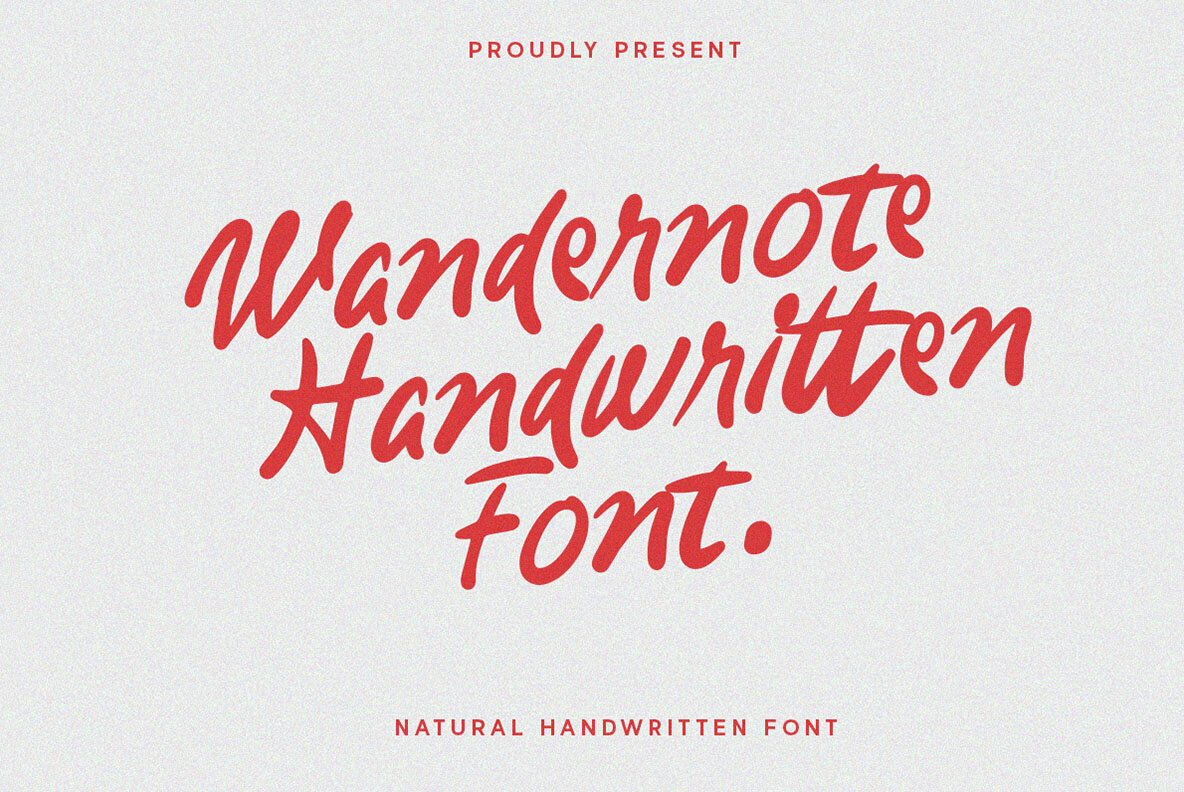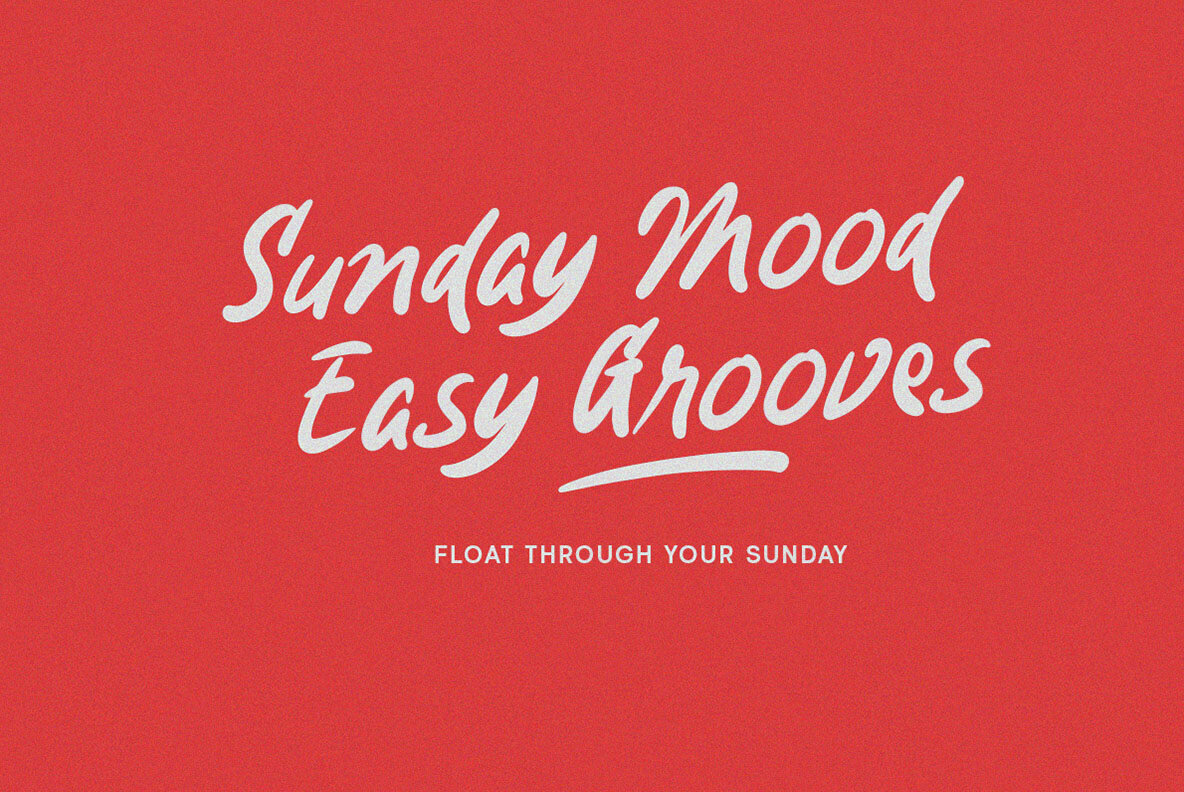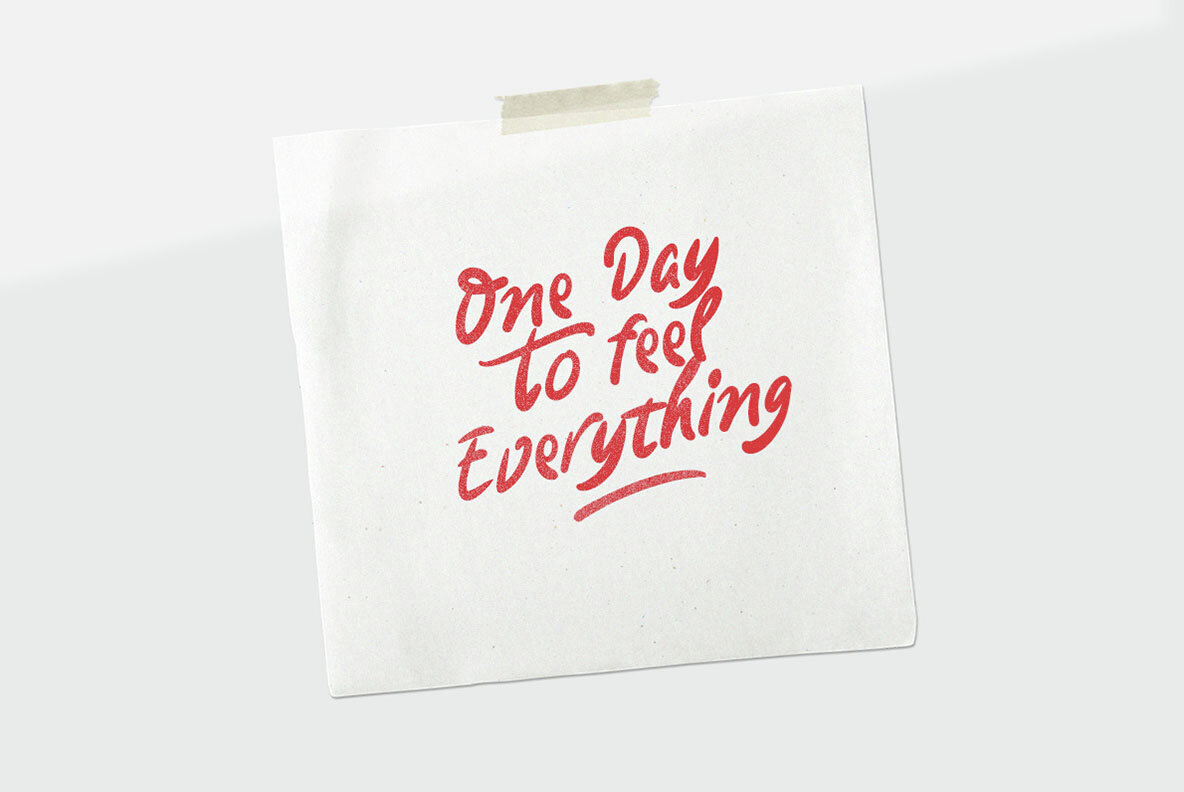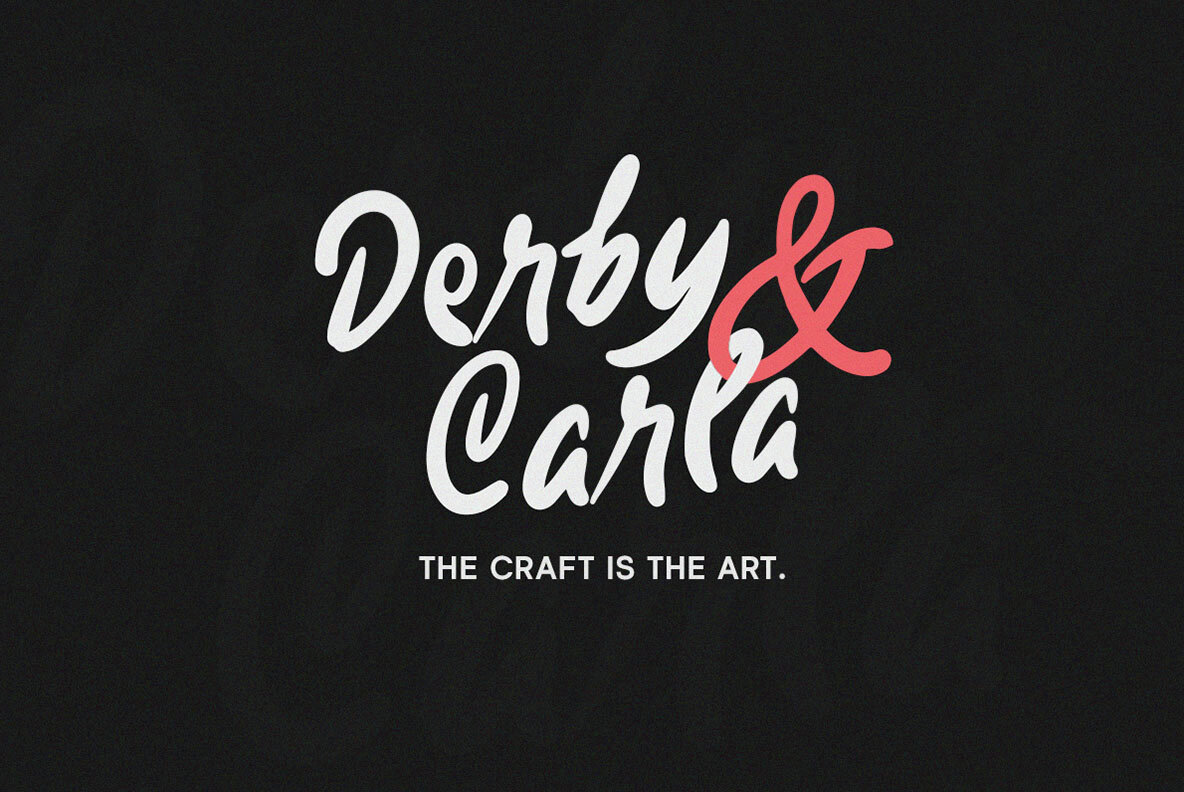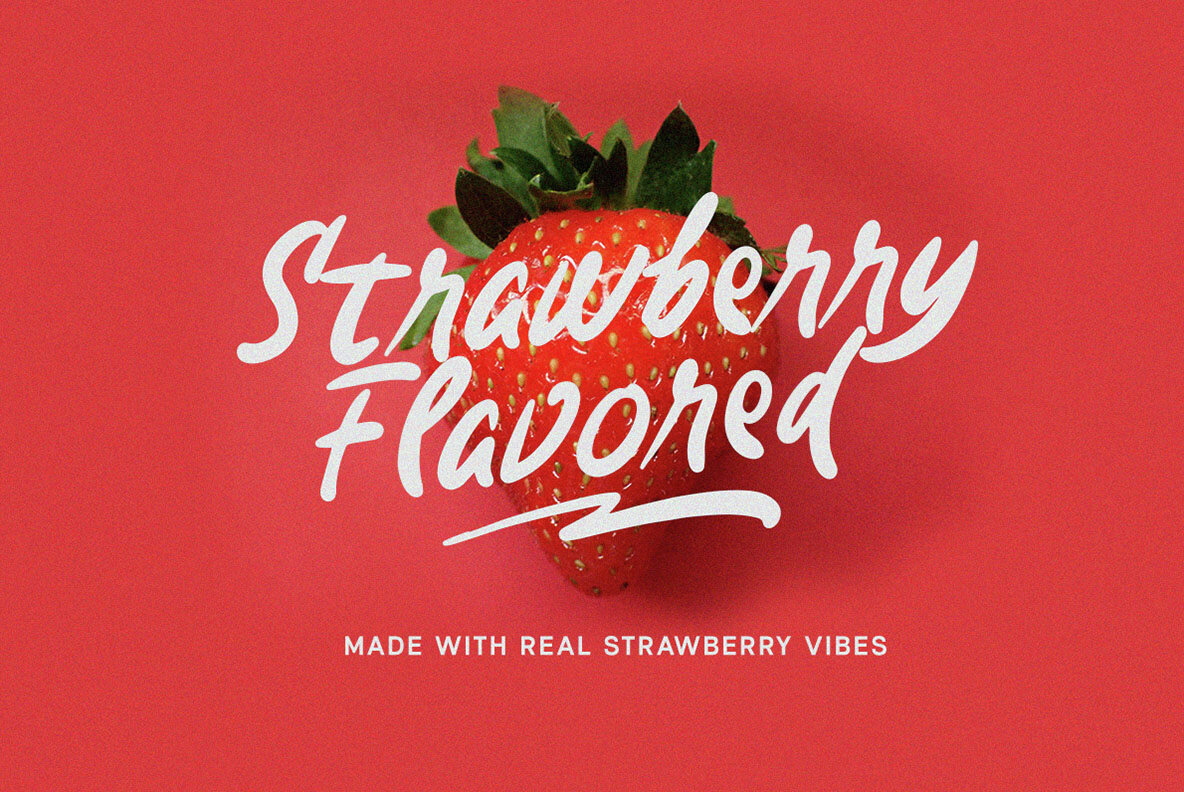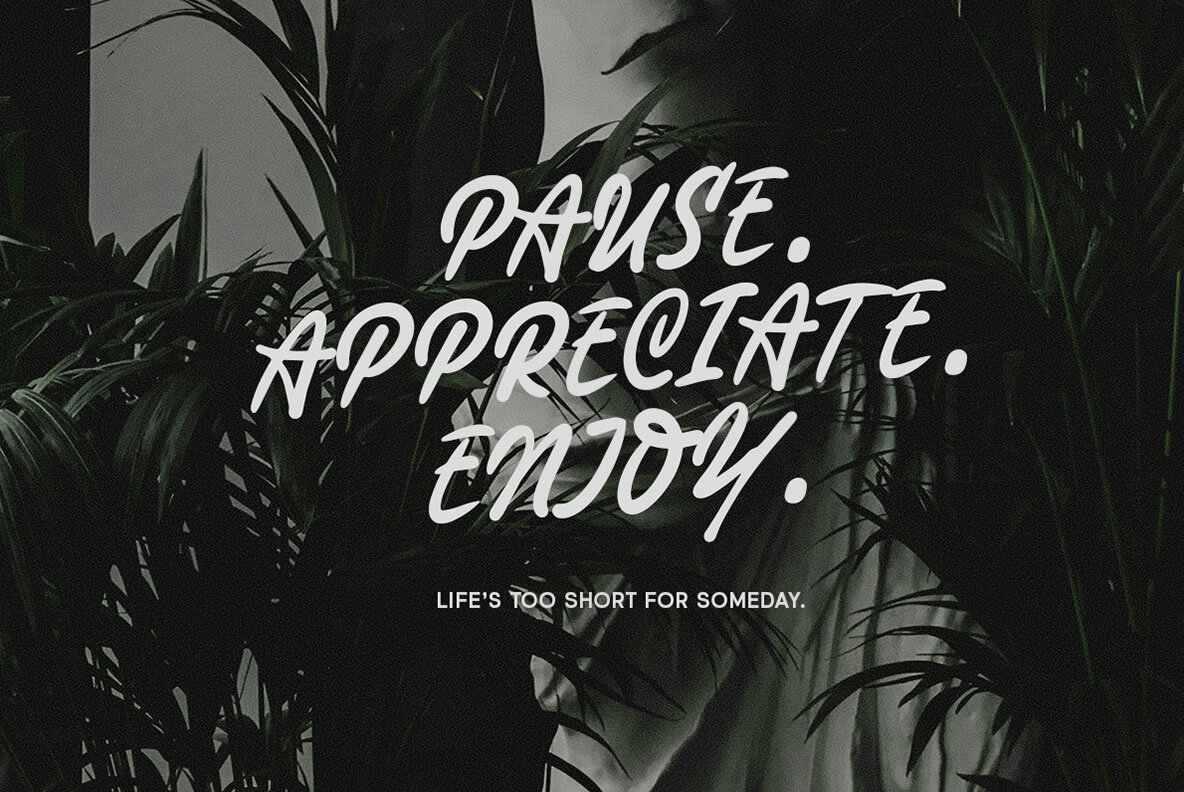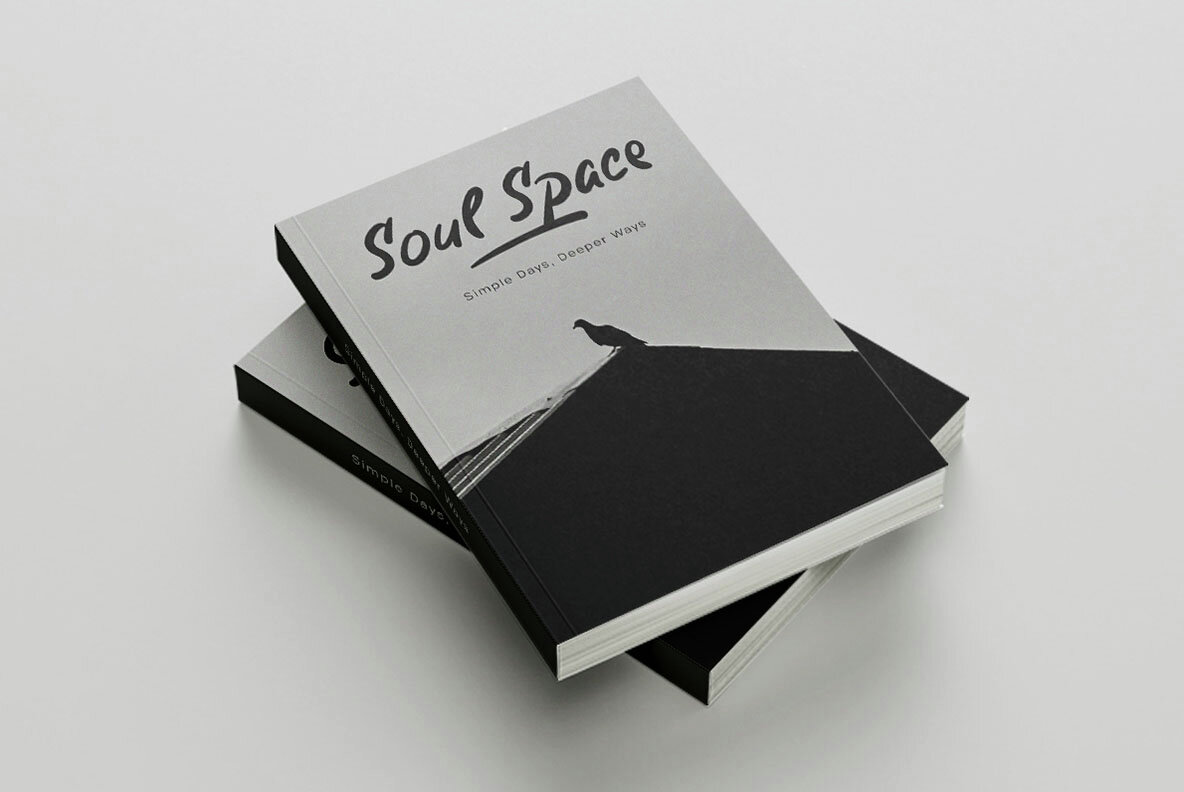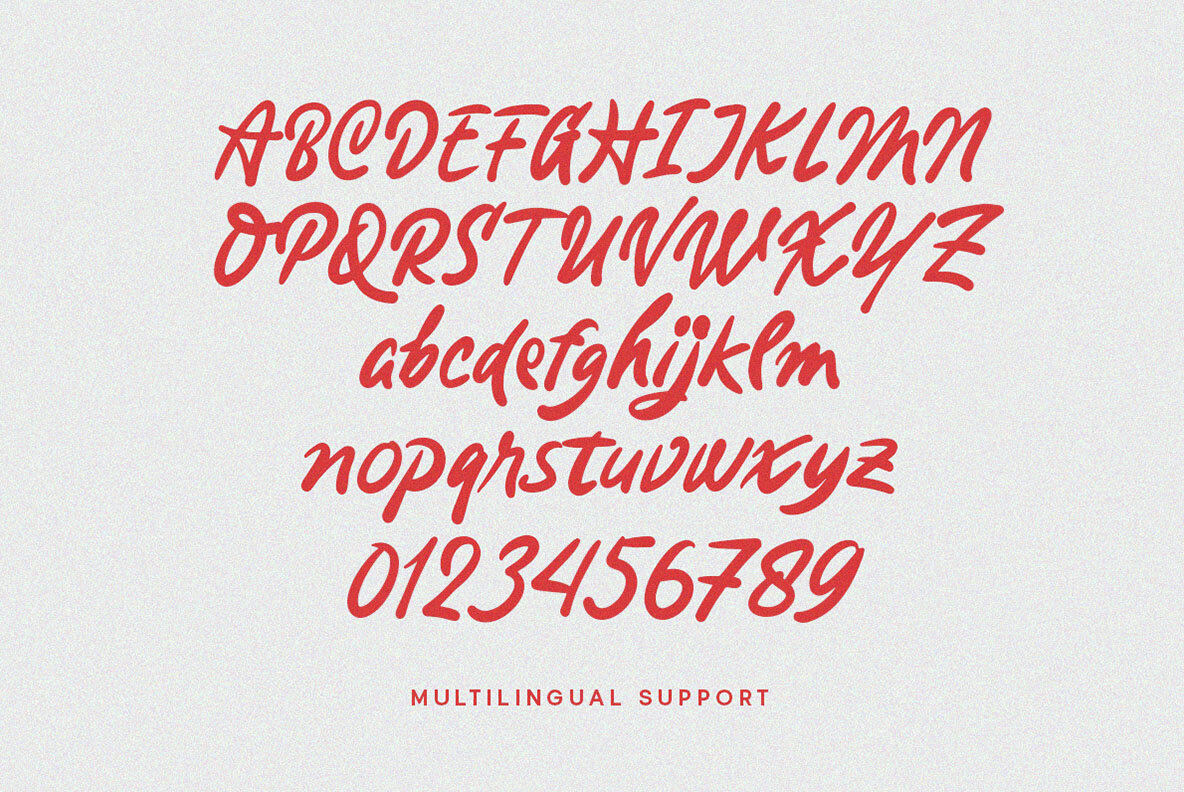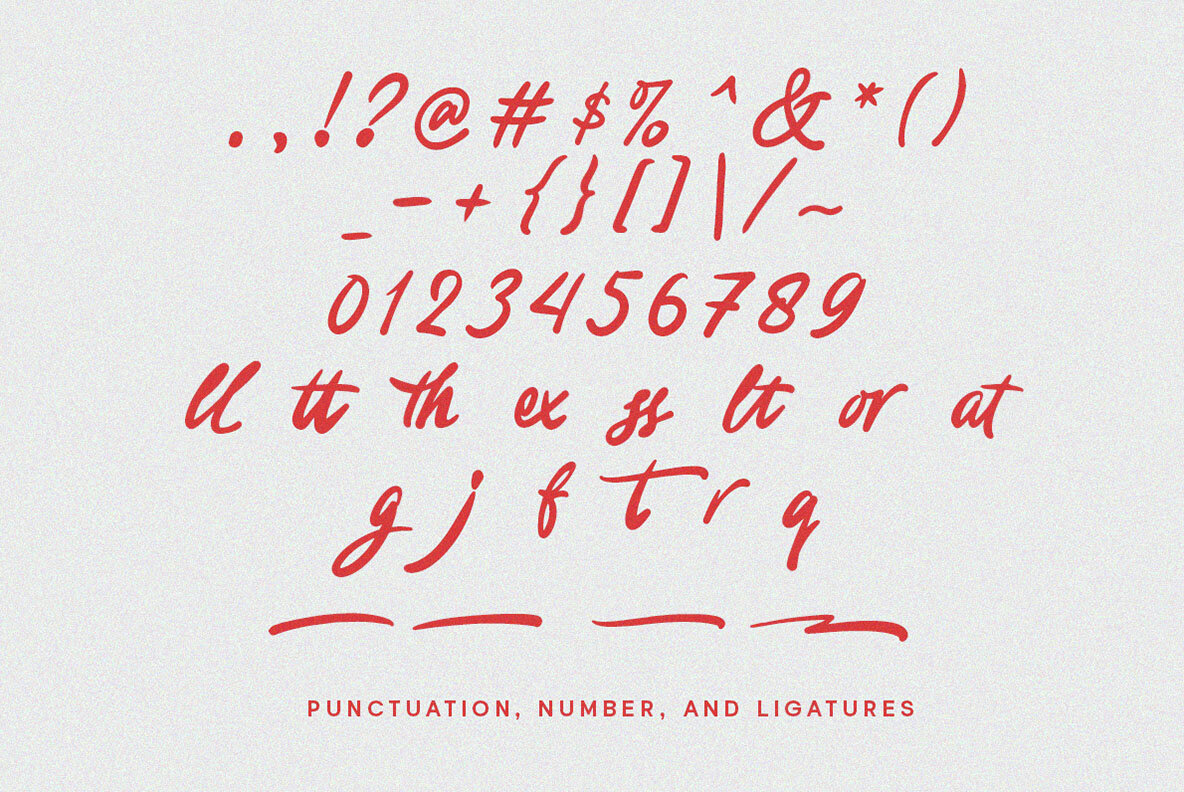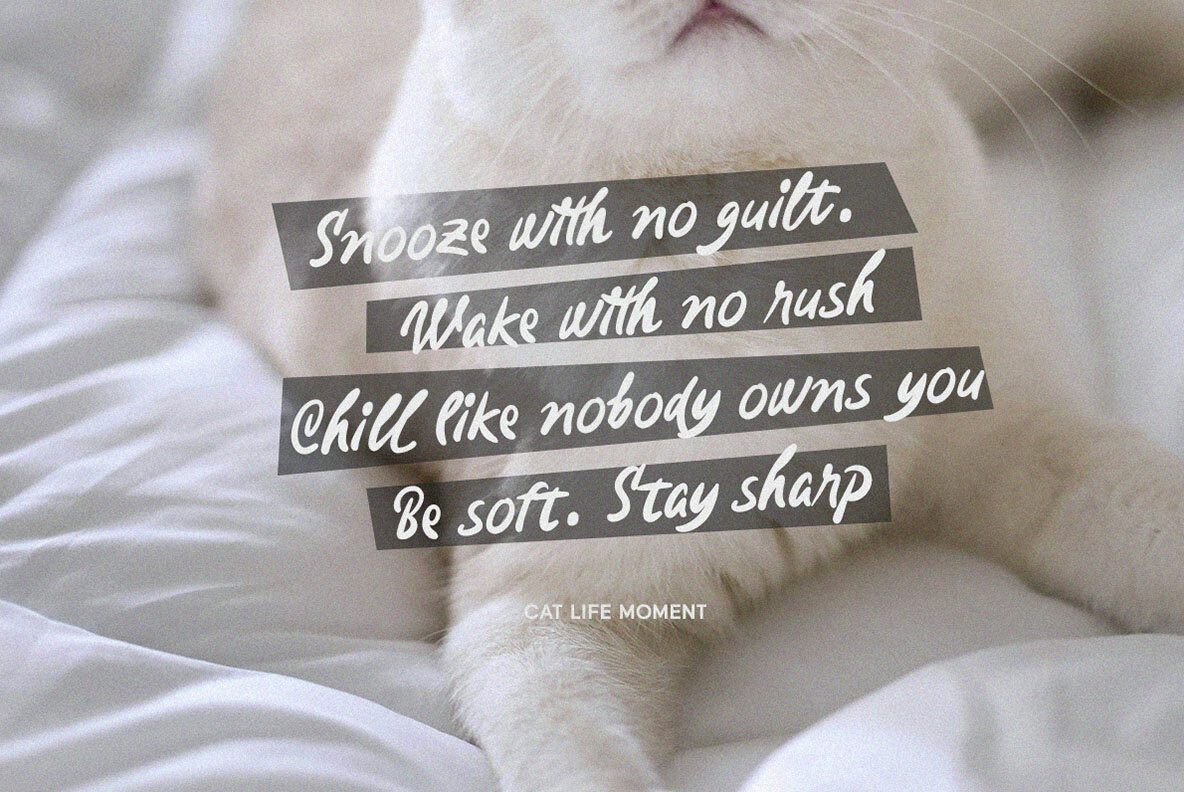
Wandernote Font
Wandernote
Wandernote is a handwritten font that captures the essence of casual writing with fluid, expressive strokes. Its brush-pen style and slightly imperfect forms lend an authentic, personal touch to your work, balancing spontaneity and legibility. The organic rhythm and dynamic baseline make it ideal for projects requiring warmth and personality, such as journals, packaging, social media graphics, greeting cards, and lifestyle branding. Whether for titles or quotes, Wandernote adds a charming and natural flair to design projects. We recommend using software that supports OpenType features and Glyphs panels, like Adobe applications or Corel Draw, to explore and apply all available Glyph variations.Wandernote: Handwritten Font for Personal Touch